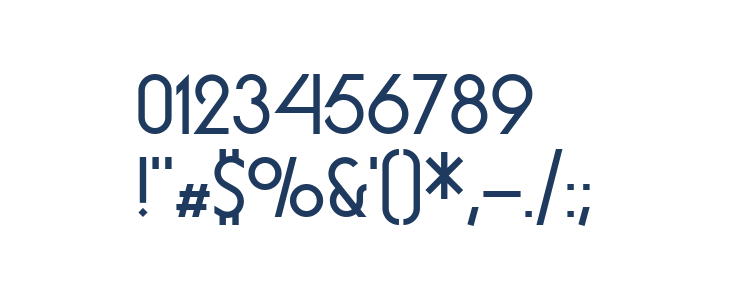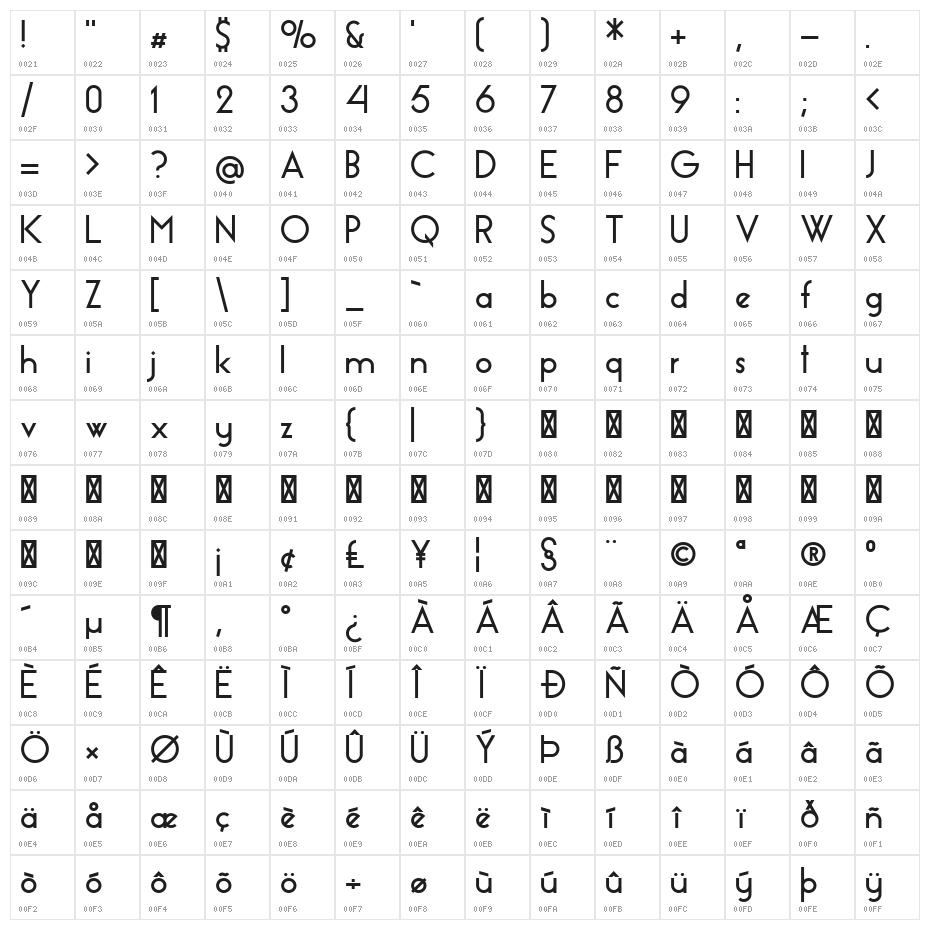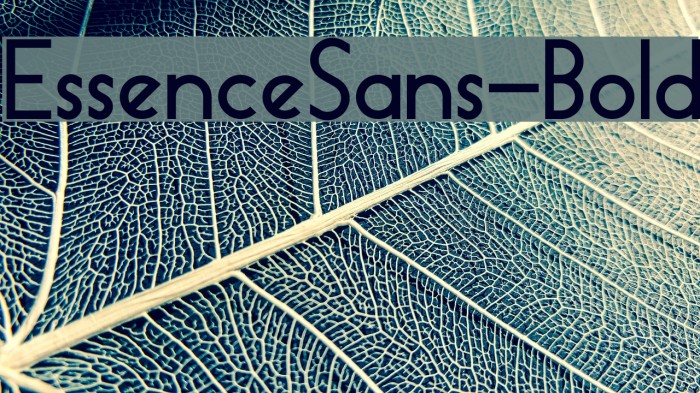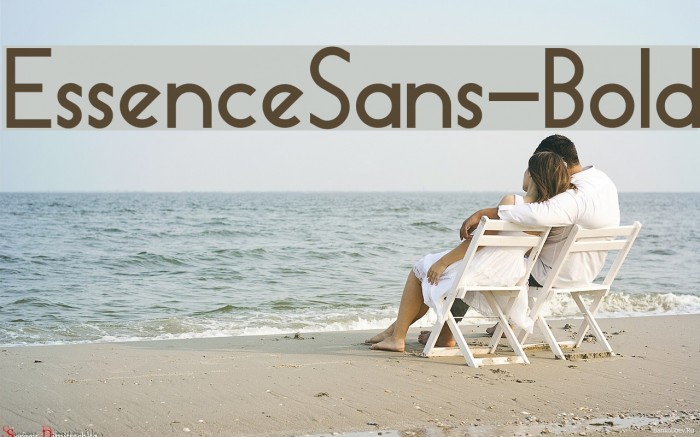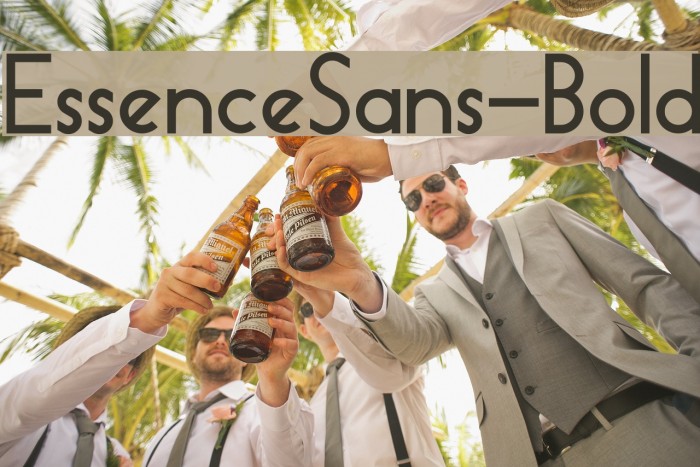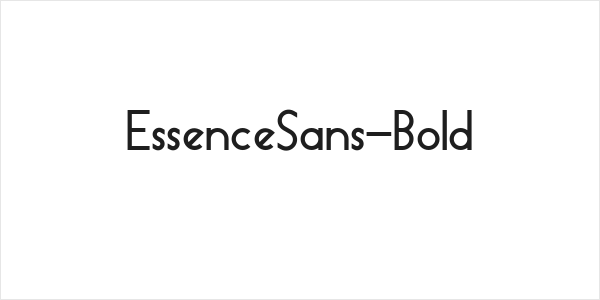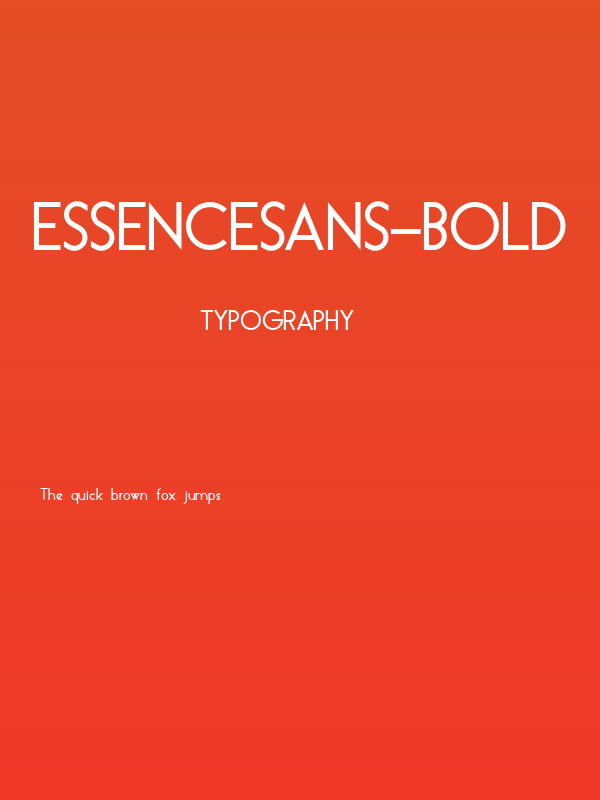
EssenceSans-Bold Font
EssenceSans-Bold Description
This font features a clean and modern sans-serif design with a bold weight, characterized by its geometric shapes and uniform stroke widths. The uppercase letters are tall and elegant, while the lowercase letters maintain a consistent height, ensuring readability. The numerals are clear and distinct, making them suitable for various applications. Special characters are well-defined, adding versatility to the font's use. The overall appearance is sleek and professional, making it ideal for contemporary design projects.
| Use Case | Headlines, Logos, Web design |
| Proposed Projects | Ideal for branding, advertising, web design, and editorial projects that require a modern and professional look. |